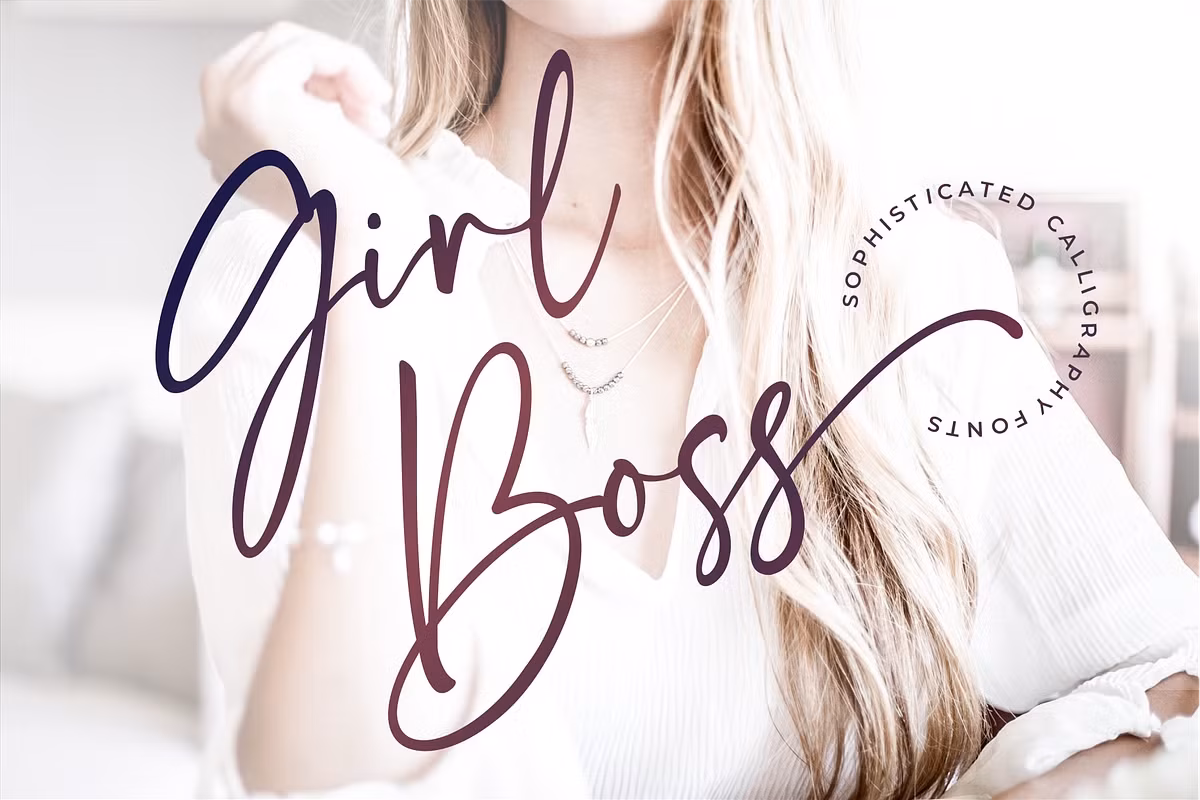
Girl Boss - Sophisticated Calligraphy Font Free Download is an elegant and stylish calligraphy script font designed with sophistication and grace. Its smooth, flowing strokes and delicate curves make it perfect for high-end branding, wedding invitations, logos, social media graphics, and any design project that needs a touch of luxury and refinement.
With its sophisticated and feminine vibe, Girl Boss is ideal for creating chic, modern designs with a personalized, handwritten touch. Whether you're crafting a logo, designing an invitation, or creating stylish social media posts, this font brings elegance and charm to your typography.
Add a touch of elegance and class to your designs with Girl Boss - Sophisticated Calligraphy Font Free Download, and create beautiful, refined typography that stands out with style. Perfect for designers looking for a classy, feminine script font.